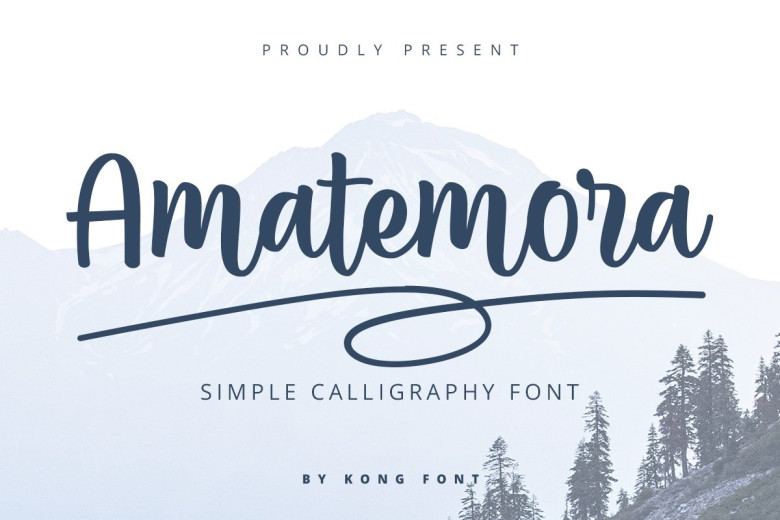
Amatemora Handwritten Script Font
Amatemora Script Font is a handwritten script with attractive look. It allows you to mix and match letter pairs to fit your design into a harmonious typographic whole (headlines). Amatemora Font is attractive but classical, smooth, clean, simple, elegant, and very legible.
Amatemora is very suitable for various purposes and design of logos, posters, brands, t-shirts, letterhead, signage, book covers, magazines, invitations, labels, menus, fashion, stationery, letterpress, book covers, diplomas, certificates, greeting cards, packaging, and other beautiful and creative things.